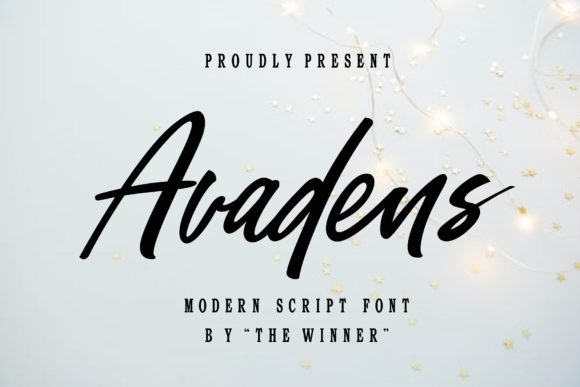
Unveil a realm of elegance and sophistication with Avadens Font, a captivating script font that breathes life into your creative endeavors. Inspired by the timeless allure of classic calligraphy, Avadens embodies a contemporary spirit that adds a touch of modern flair to your designs. Expertly crafted with a harmonious balance between thickness and thinness, each letter dances across the page with a graceful rhythm, ensuring visual appeal and legibility.
With its meticulously crafted curves and intricate details, Avadens Font elevates the beauty of your projects, transforming ordinary words into works of art. Its versatility shines through in its ability to adapt seamlessly to a wide range of applications, from wedding invitations and love letters to branding and marketing materials. Whether you're a seasoned designer or just starting your creative journey, Avadens Font is the perfect companion to bring your visions to life.
Indulge in the charm of Avadens Font and discover a world of endless possibilities. Its elegant strokes dance across the screen, capturing the essence of romance and sophistication. Picture the joy on your loved one's face as they receive a wedding invitation adorned with Avadens' enchanting script. Let your words carry the weight of your emotions, beautifully expressed through the artistry of this font.
Unlock your creativity and embark on a journey of self-expression with Avadens Font. Its timeless design transcends trends, ensuring that your creations remain captivating for years to come. As you explore the depths of your imagination, Avadens Font will faithfully accompany you, adding a touch of magic to every project you undertake.
Don't settle for ordinary fonts that blend into the background. Embrace the allure of Avadens Font and watch as your designs take center stage. Its captivating presence demands attention, leaving a lasting impression on your audience. Let Avadens Font be your secret weapon, transforming your creative endeavors into masterpieces that resonate with beauty and elegance.